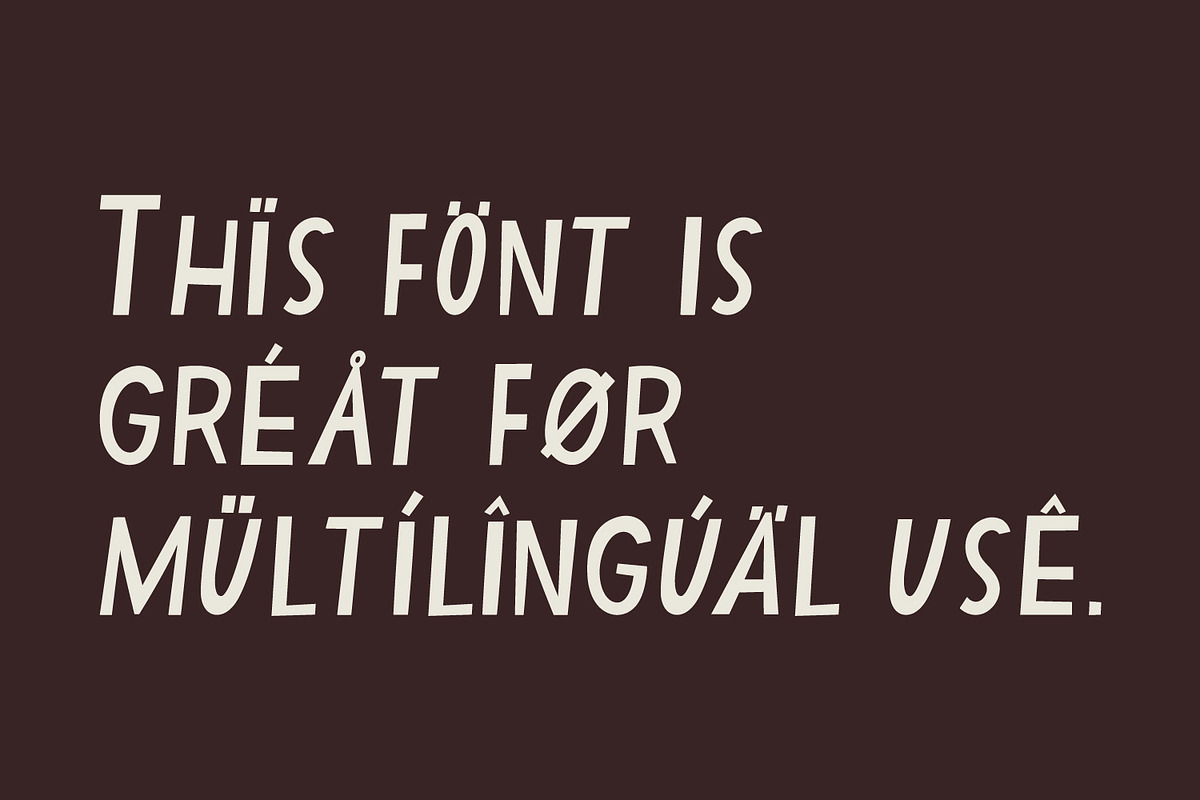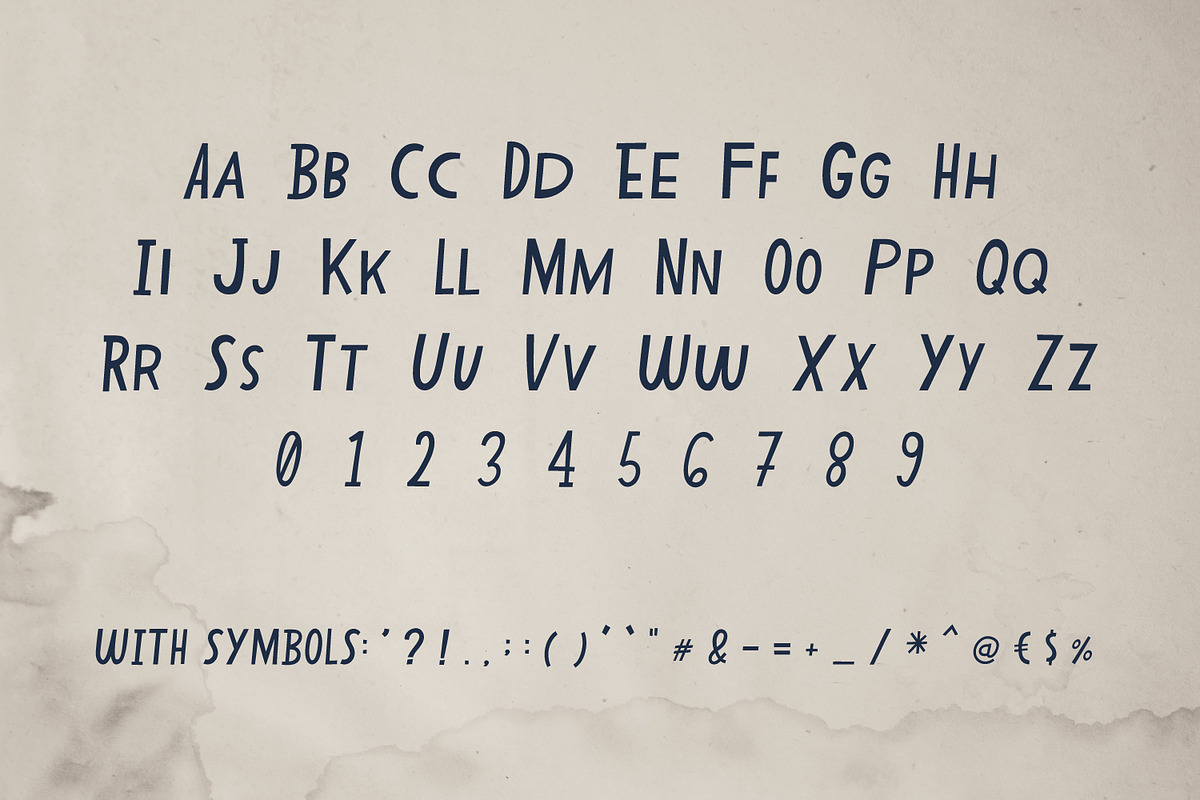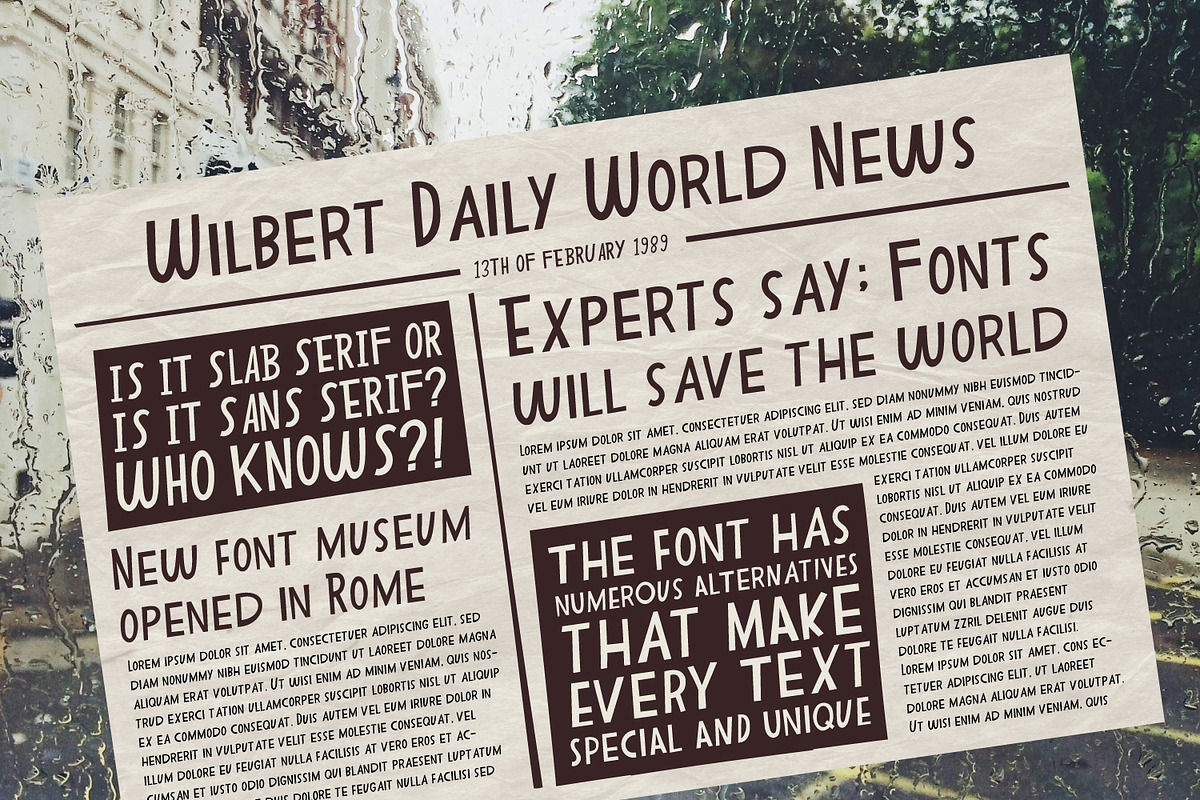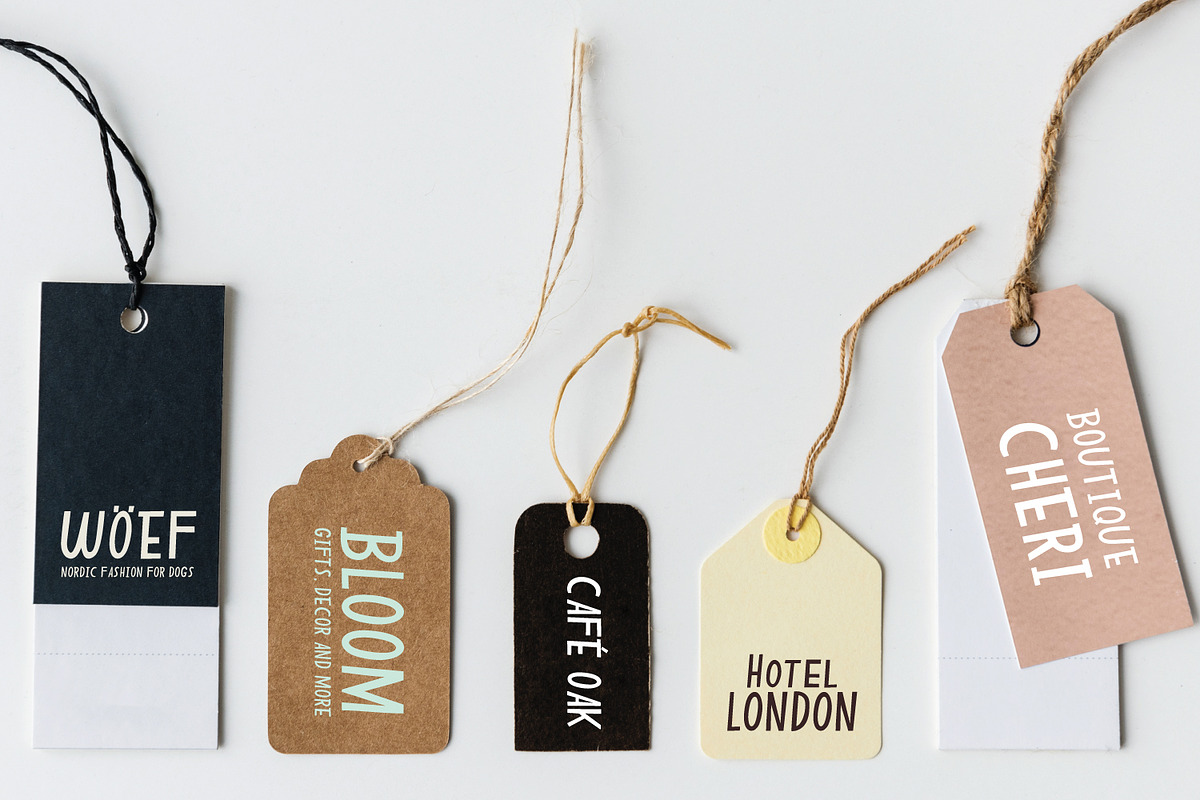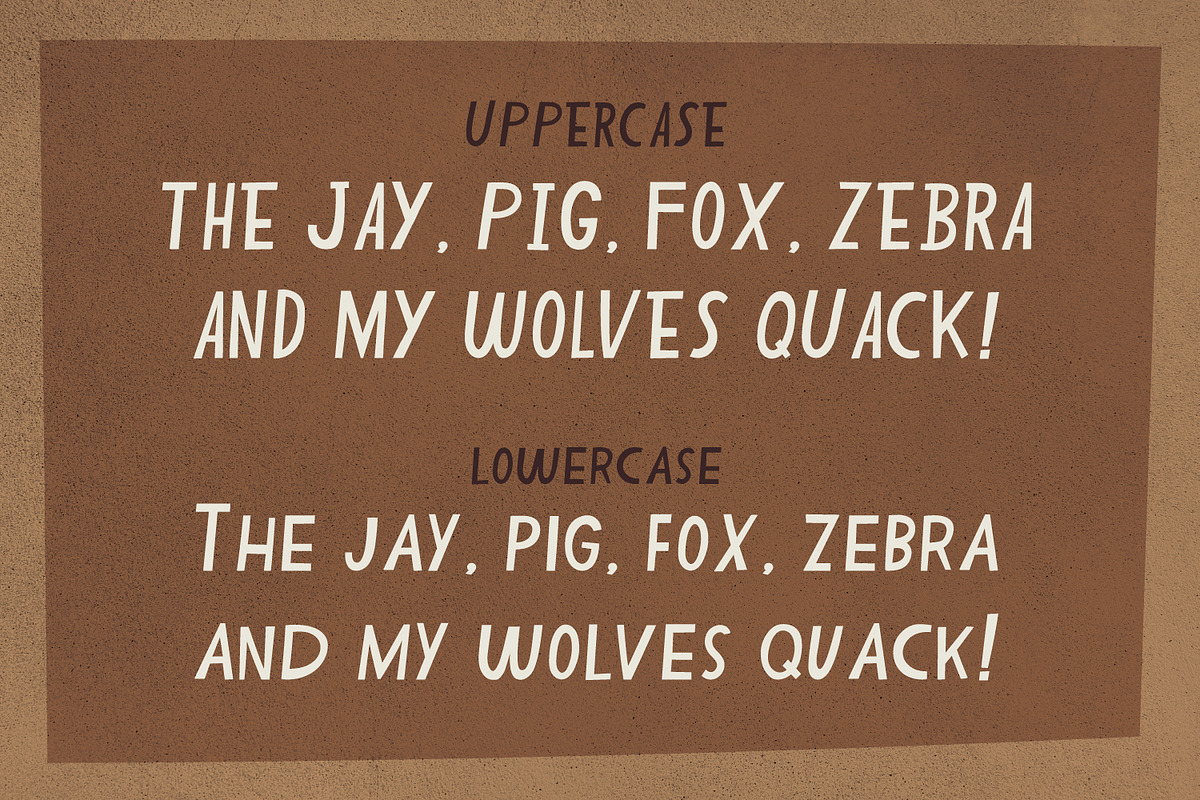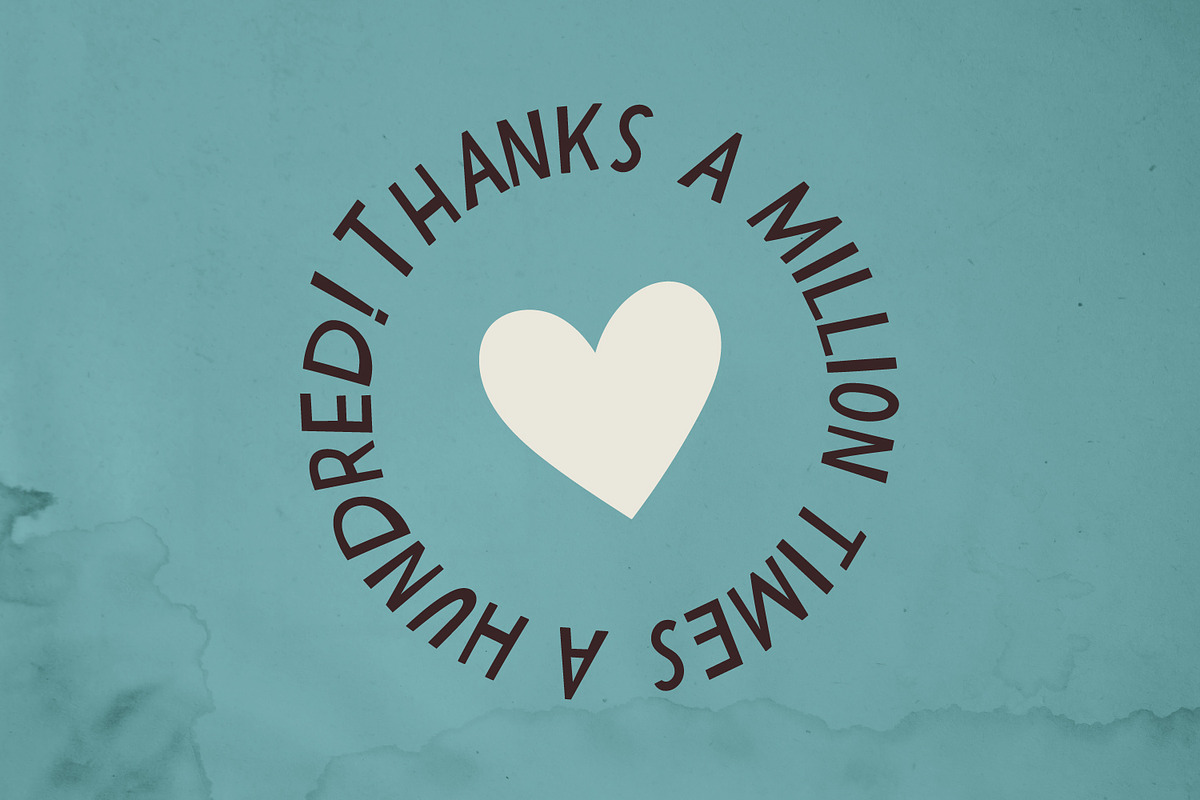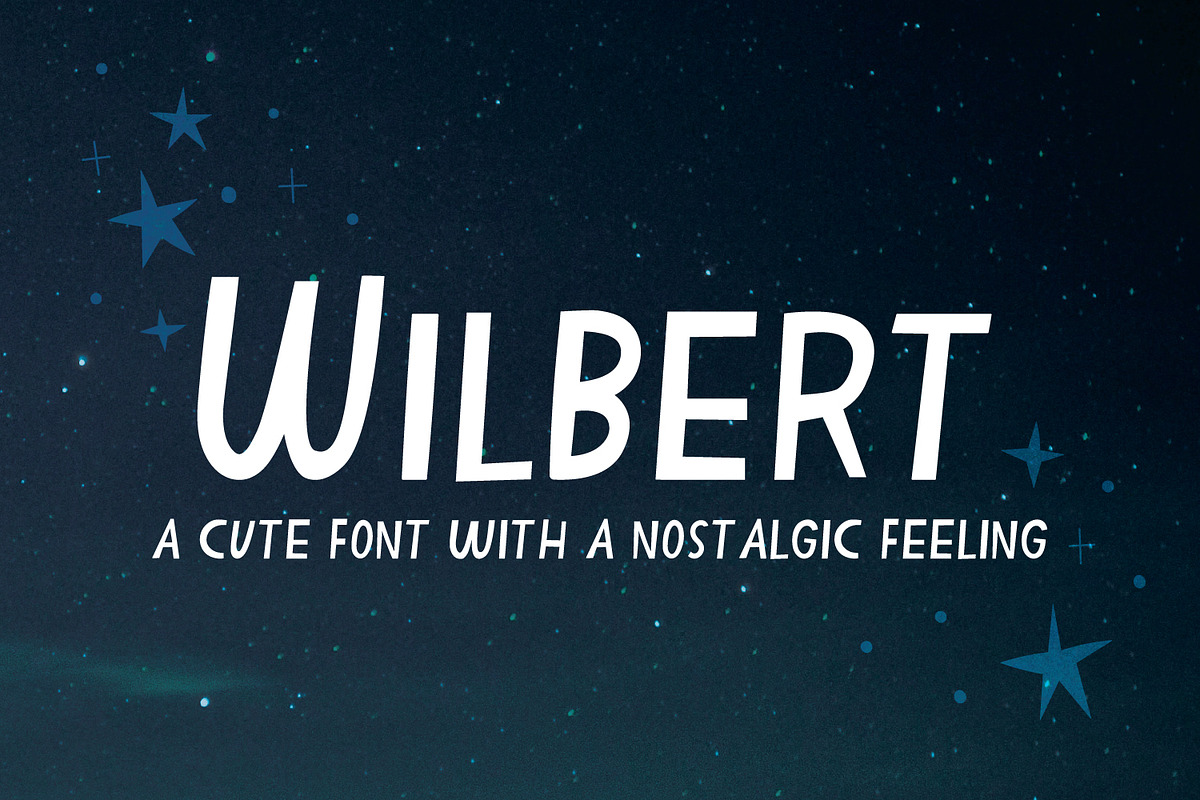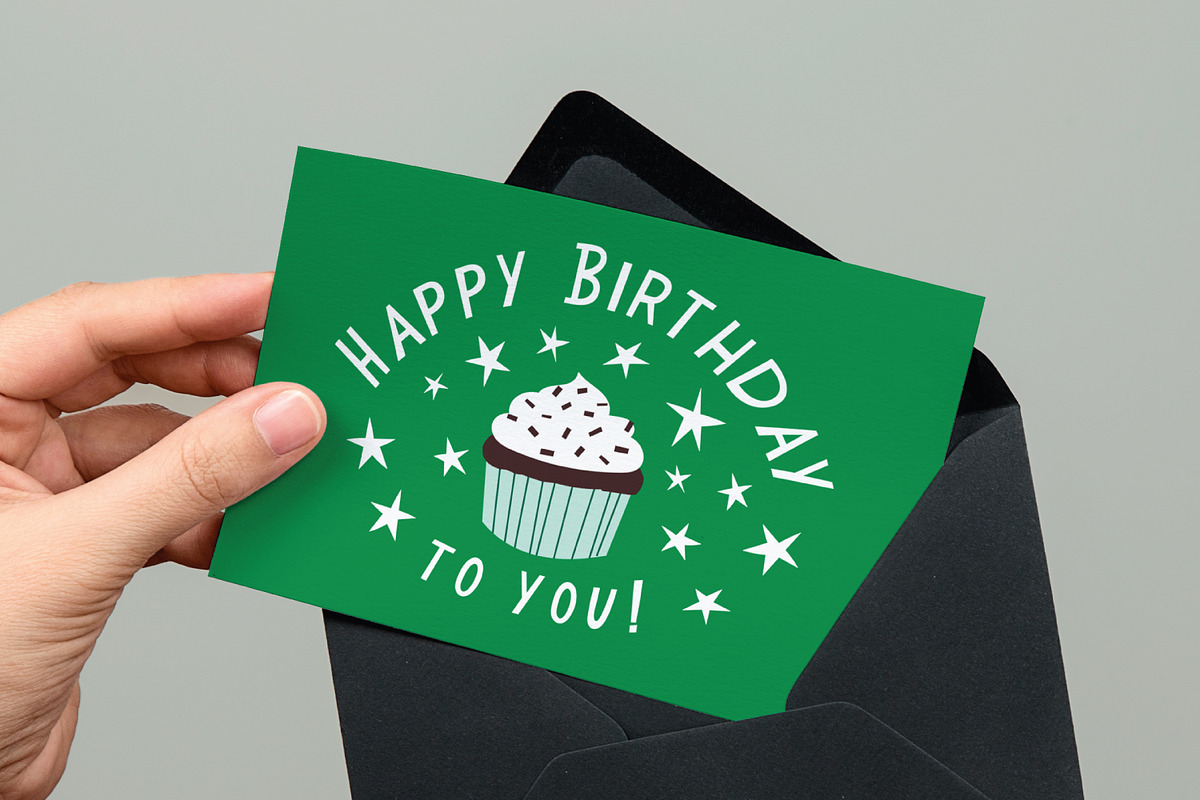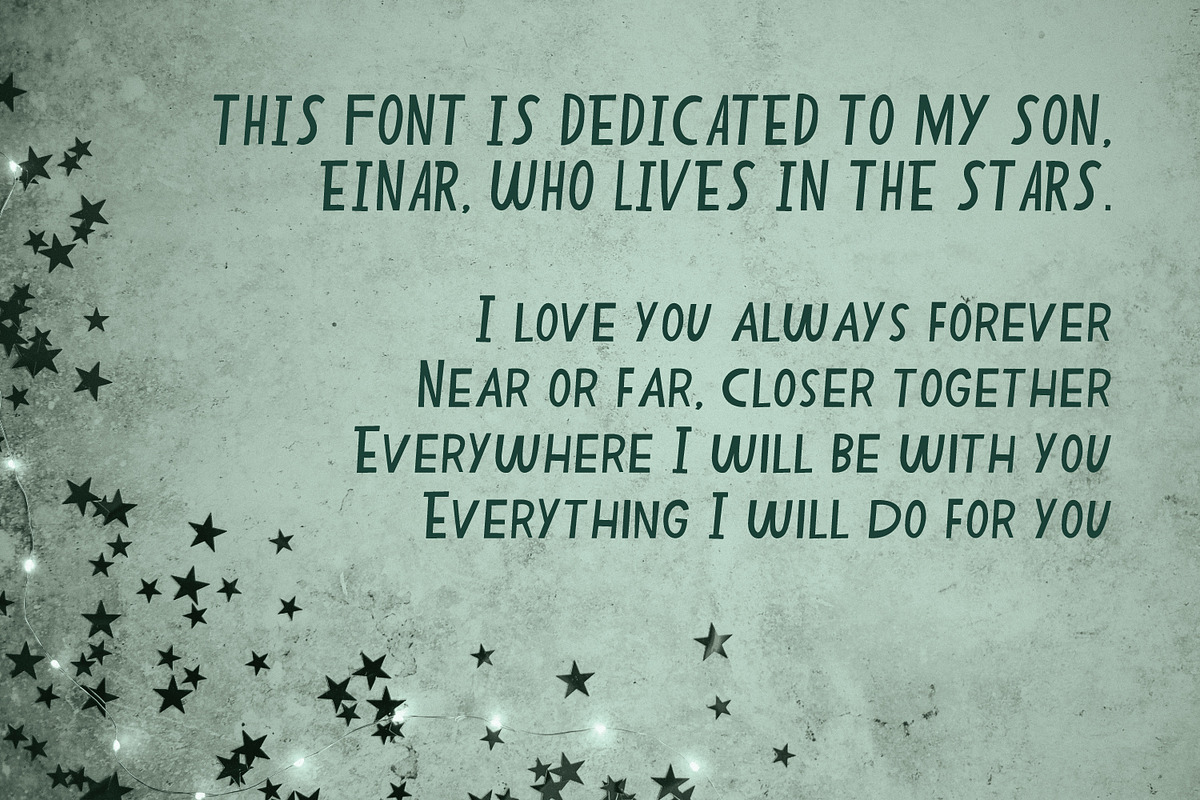
Wilbert
Hello there, lovely person who is interested in purchasing my font, Wilbert. May I tell you a little bit more about my font? Wilbert is a cute font with a hint of nostalgia, that makes everything you use it with, a little bit more interesting and even fun.
The font includes so many alternatives, for uppercase and lowercase letters, that it'll make your head spin. During its design, Wilbert couldn't decide if it was a slab serif font or a sans serif font, so it decided to be a little of both. While taking shape, Wilbert was also interested in different languages and being as international as it could, so it wanted to include A LOT of different accents and special letters so that many nationalities and language speakers could enjoy Wilbert - like Icelandic graphic designers, Spanish scrapbookers or French ransom letter writers!